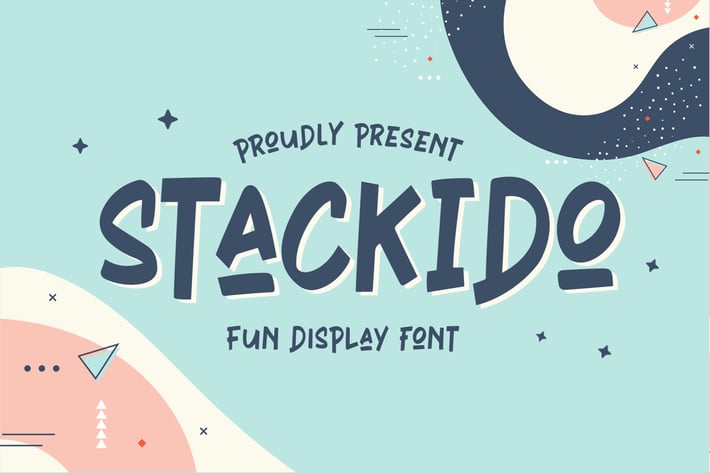
Stackido - Fun Display Font
Stackido is a Fun Display Font that will make your designs look modern, unique, and fun.
It’s perfect for labels, quotes, posters, DIY projects, branding, packaging, greeting cards, websites, photography overlays, signs, window art, scrapbooking, tags, and more!
+ Ligatures
+ Alternate glyphs